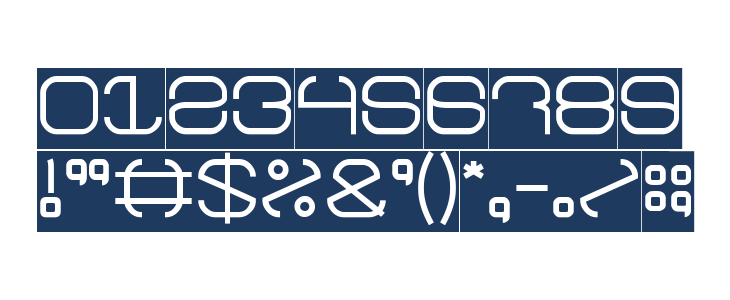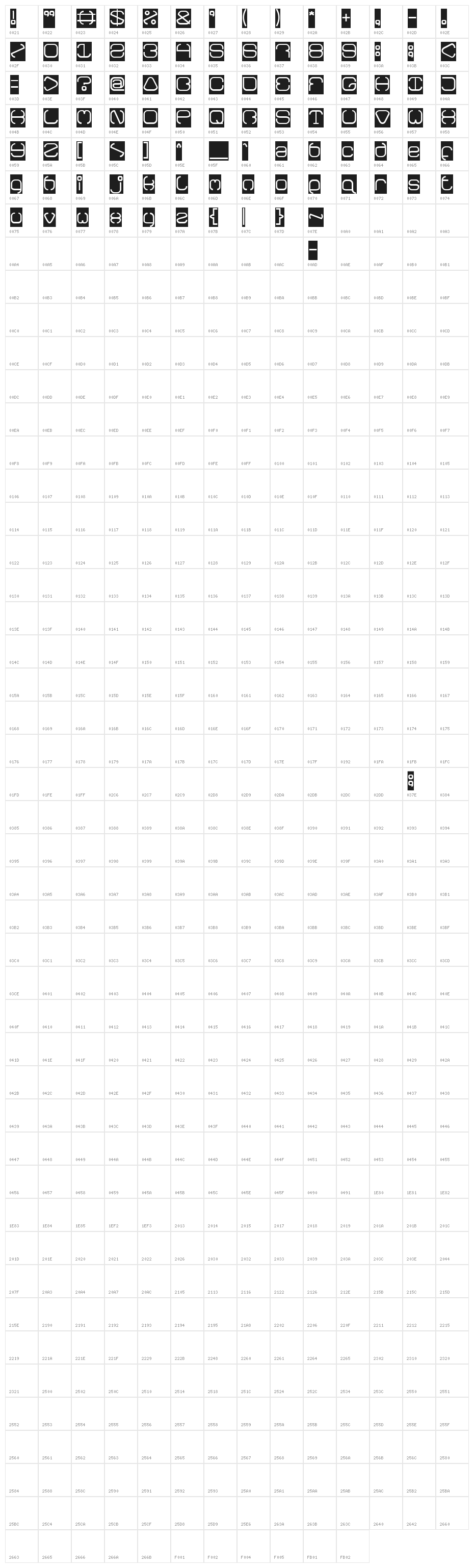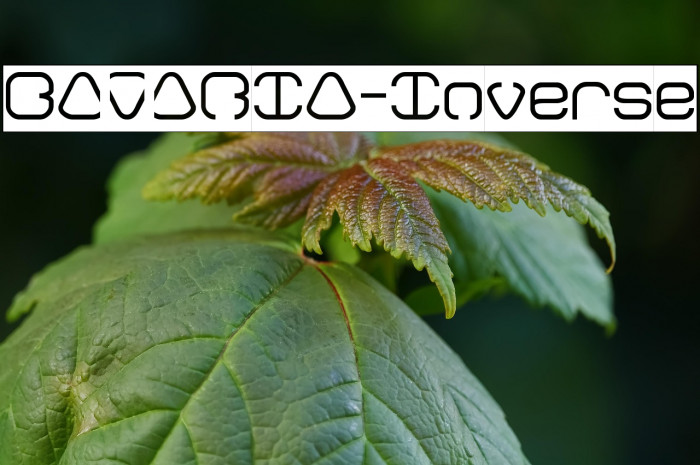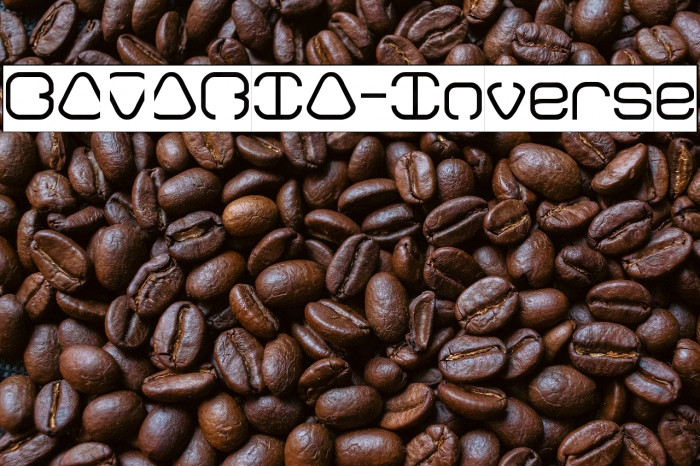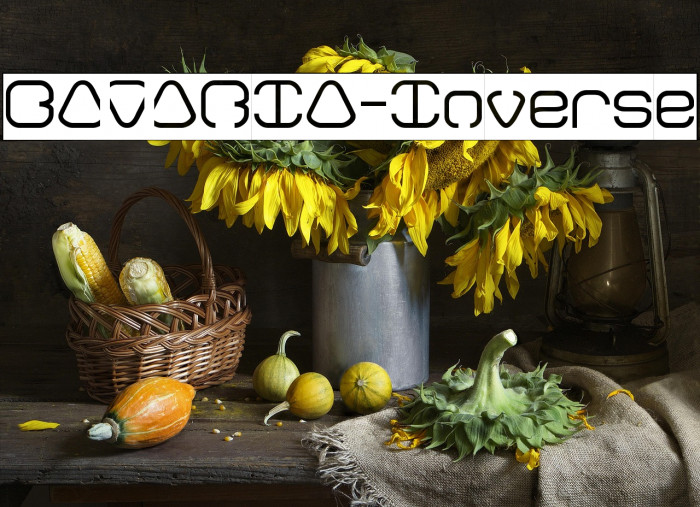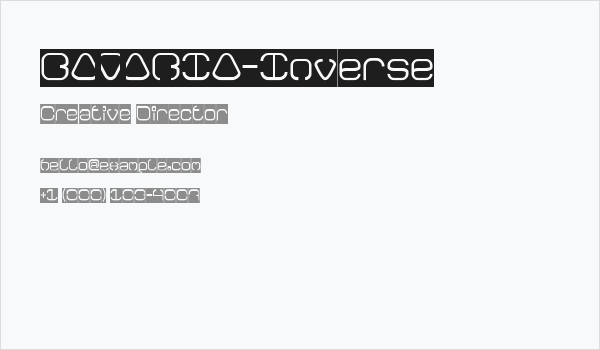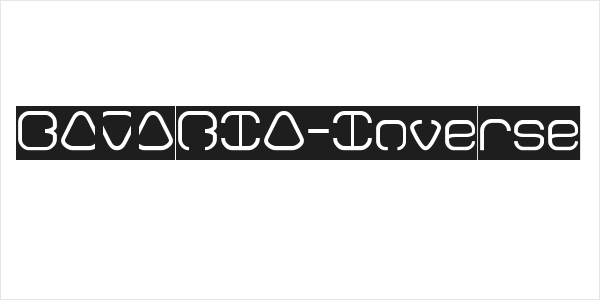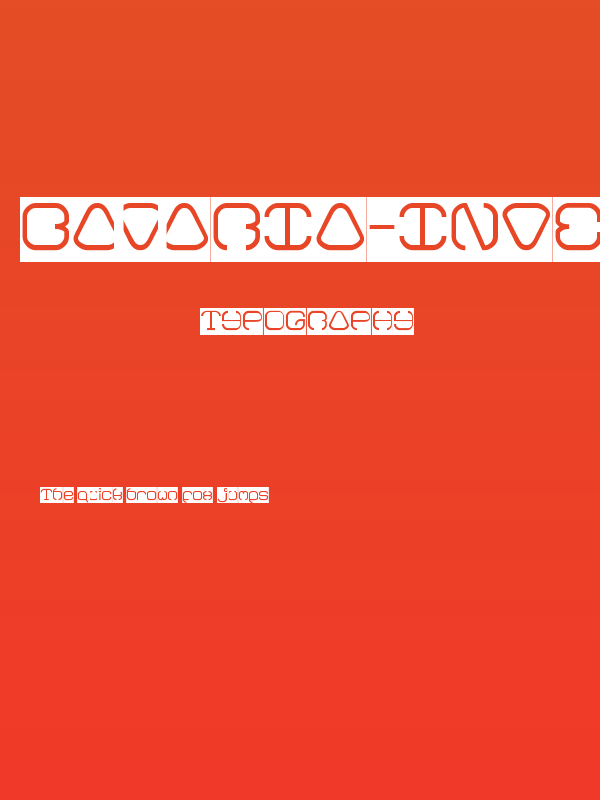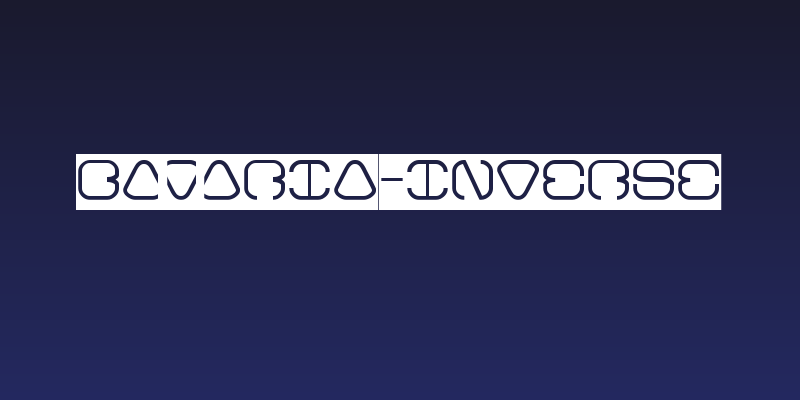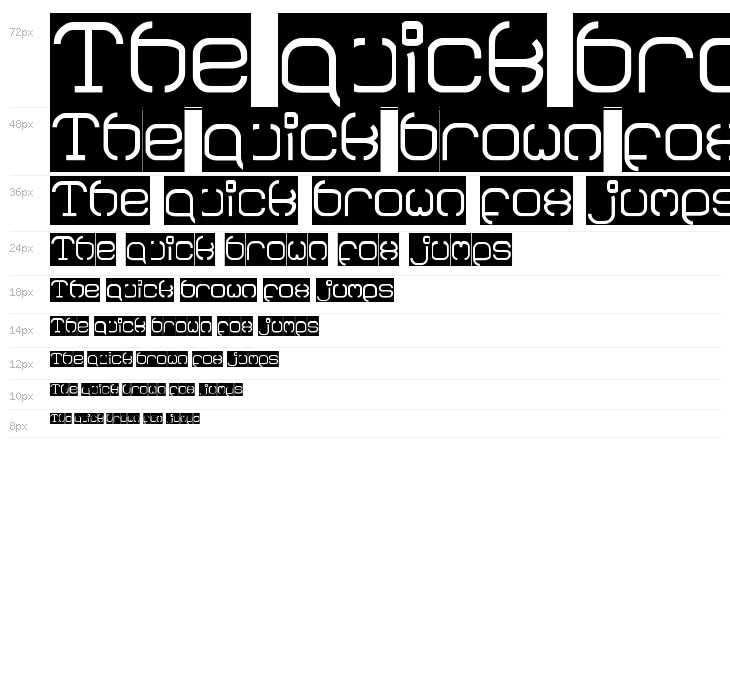
BAVARIA-Inverse Font
BAVARIA-Inverse Description
This font features a unique and modern design with a futuristic twist. The characters are enclosed within a rectangular frame, giving them a distinct and structured appearance. The strokes are consistent in thickness, providing a uniform look across all characters. The design incorporates geometric shapes and angles, creating a sense of movement and dynamism. The font's style is both bold and clean, making it suitable for projects that require a contemporary and edgy aesthetic. Its distinctive look is ideal for capturing attention and making a statement.
| Proposed Projects | Ideal for branding, posters, album covers, and digital media projects that require a modern and eye-catching typeface. |